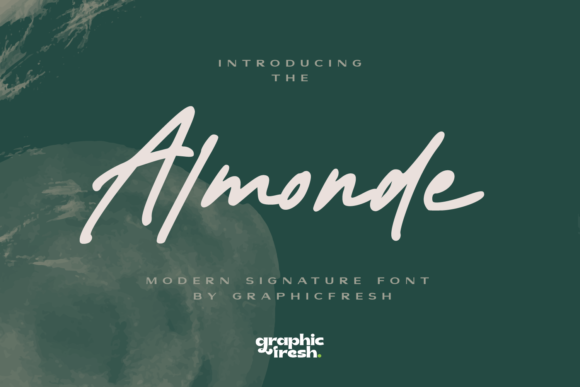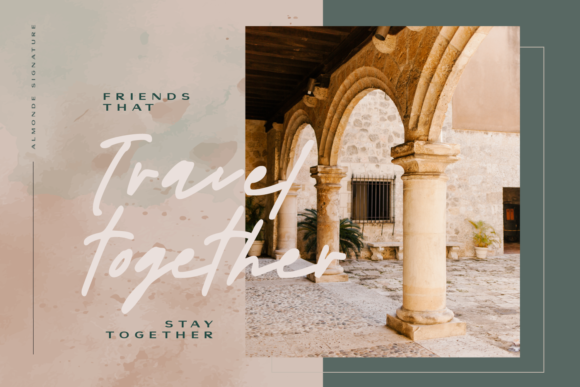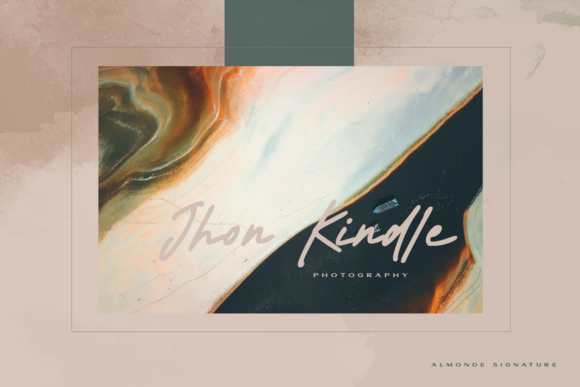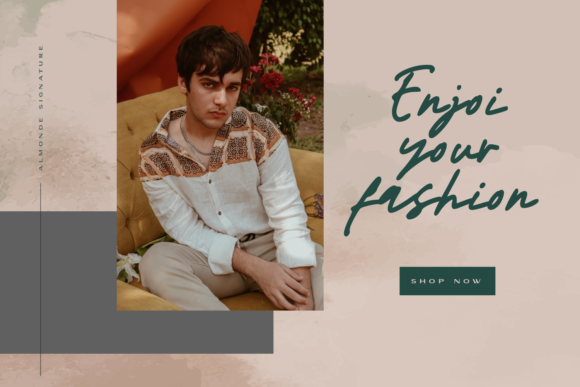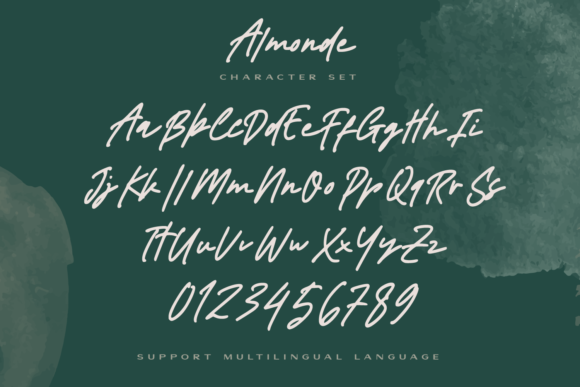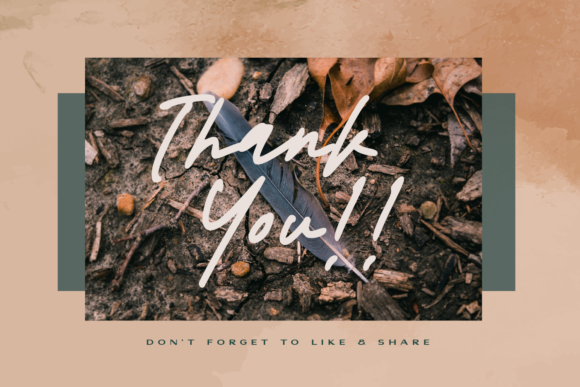
Almonde Font
Almonde is a flexible paint brushed script font, featuring asymmetrical characters. It is the best choice for creating eye catching logos, branding and quotes. Every letter has a unique and beautiful touch, which will make your design come alive!